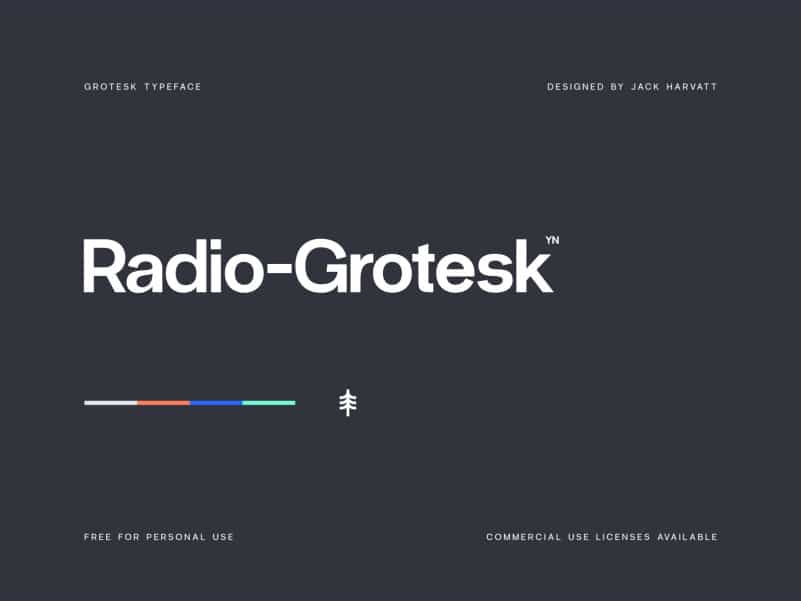
Discover Radio Grotesk Font Family, part of the Sans Serif Display collection—a versatile and unique font perfect for adding a personal touch to your projects. Download it for free and enjoy crafting designs with style, from invitations to social media posts. This font is available exclusively for personal use, giving you the freedom to create without limits. Unlock your creativity with Radio Grotesk Font Family today!
Hi! You are now a part of The Radio Grotesk Family. With its well-known majuscules style and elegant miniatures this font gives modernity to a classic typeface design. Radio Grotesk Font’s three weights can be applied to any project easily, and its three styles with 340 glyphs each are able to support languages from across North America and most of Europe.